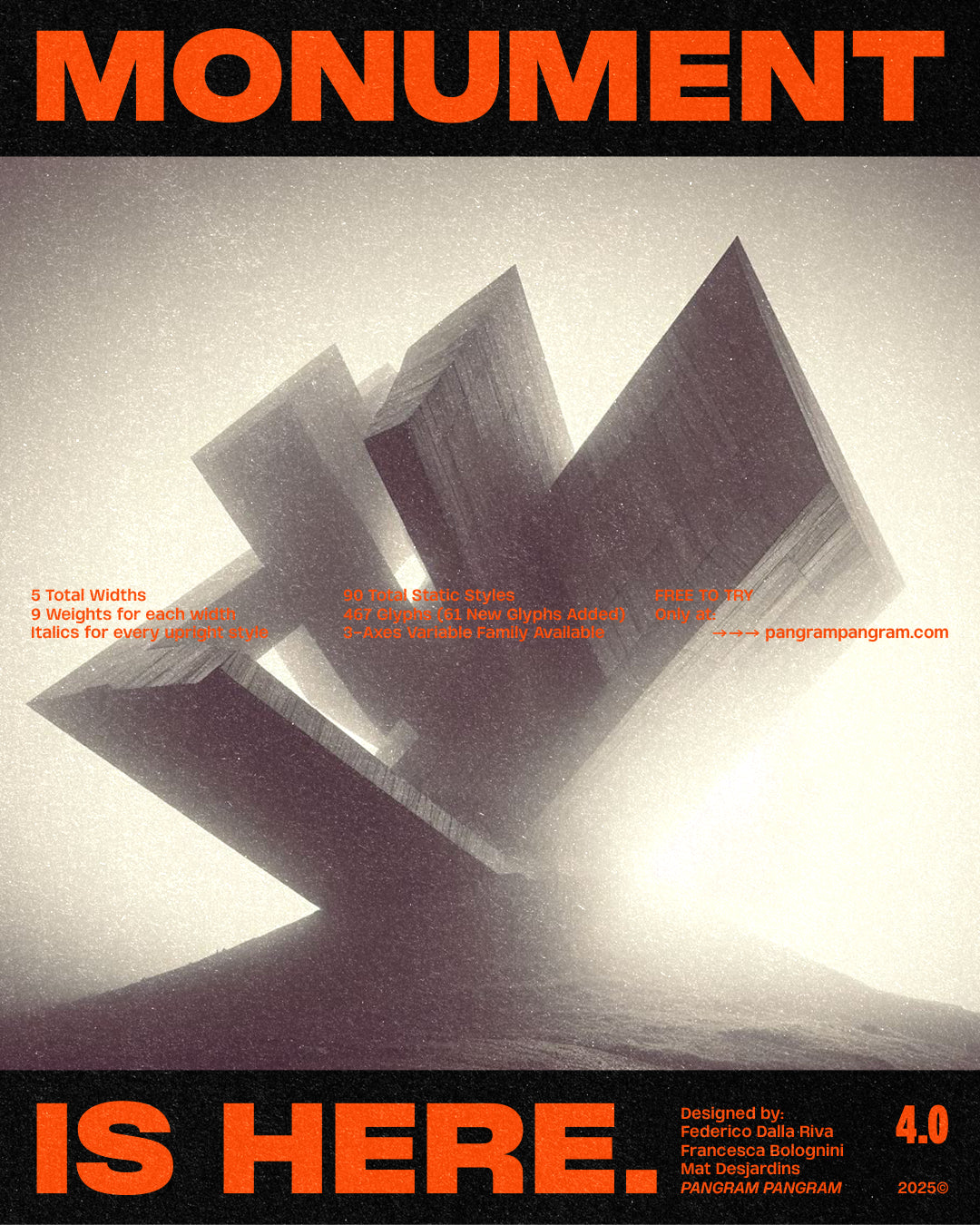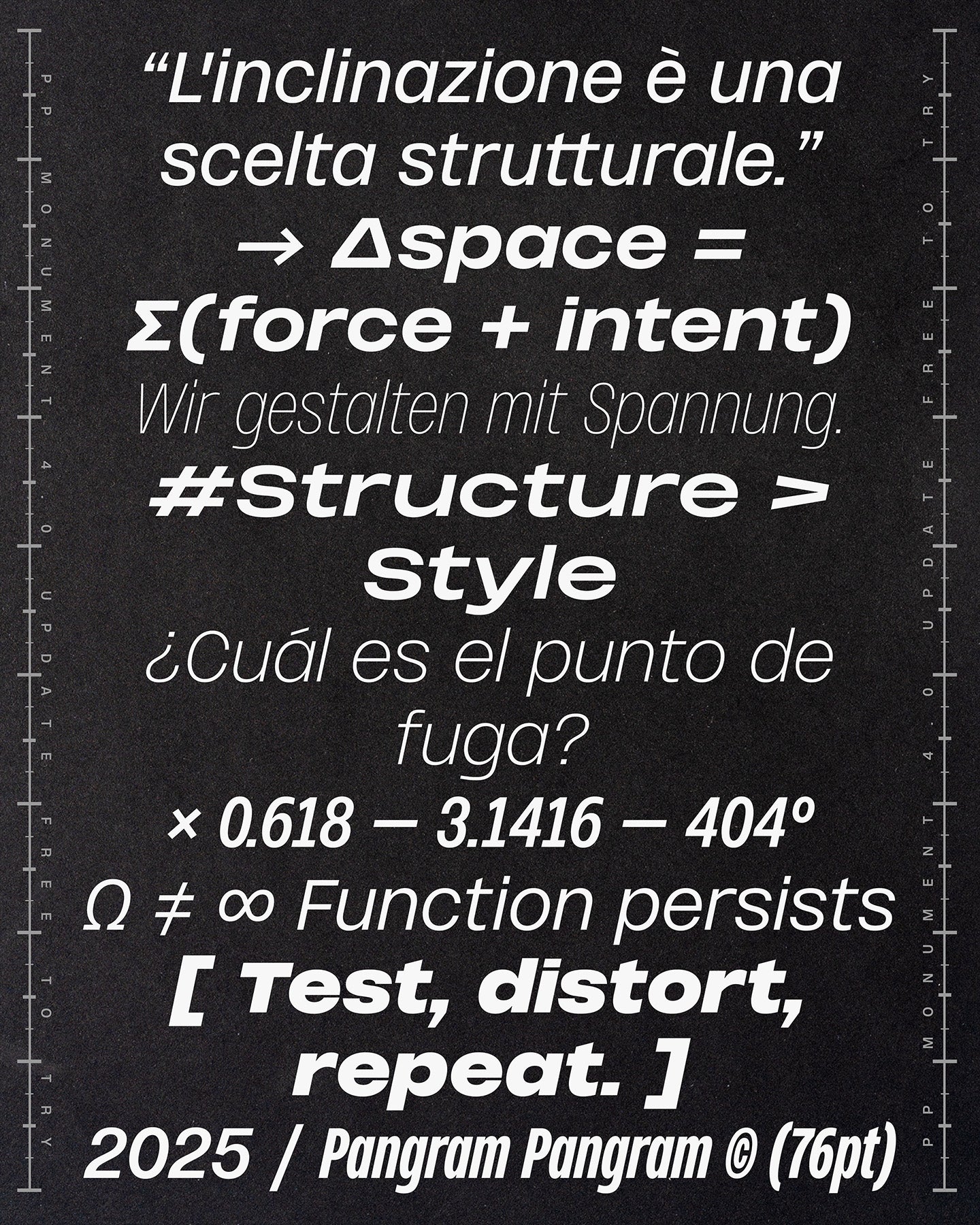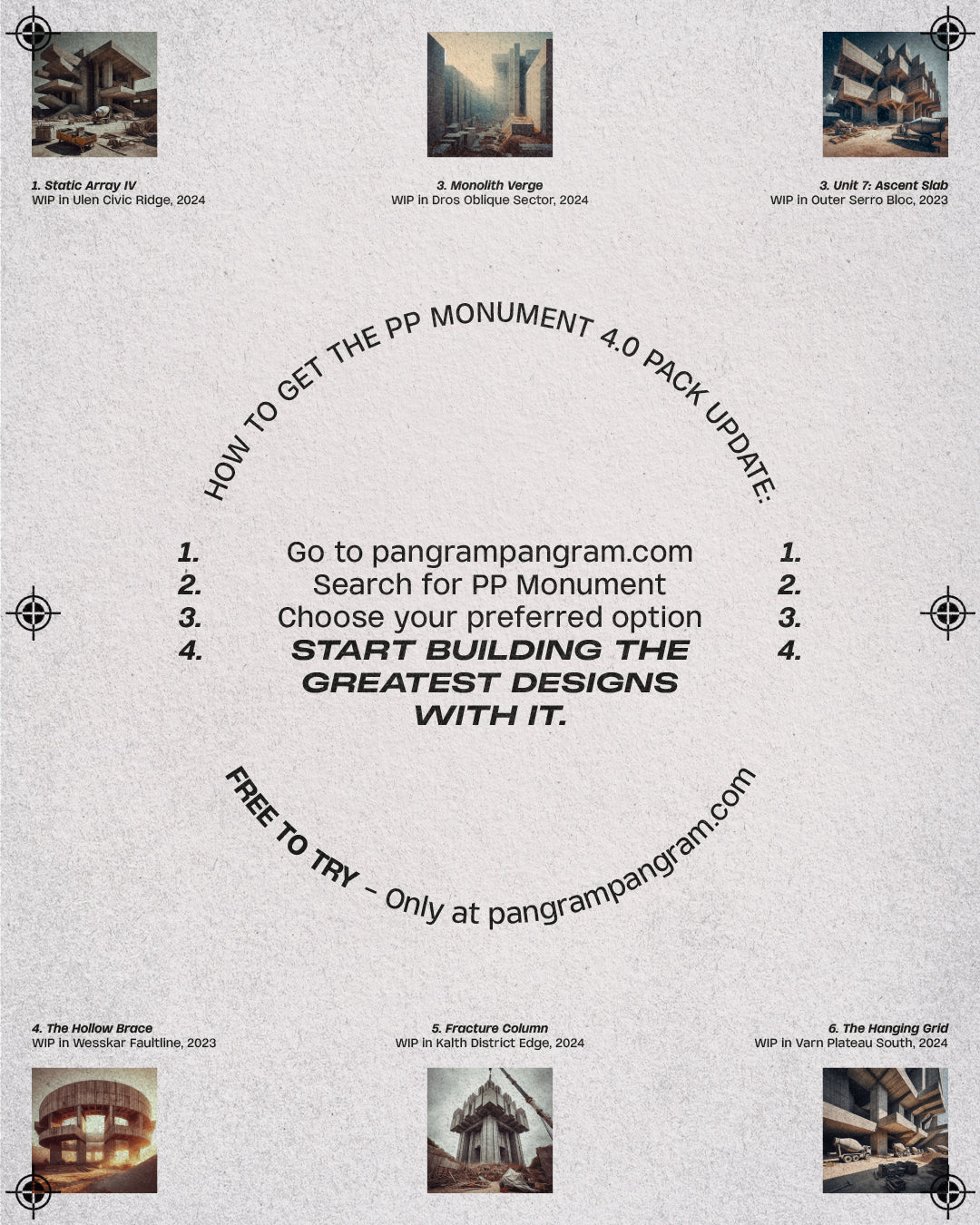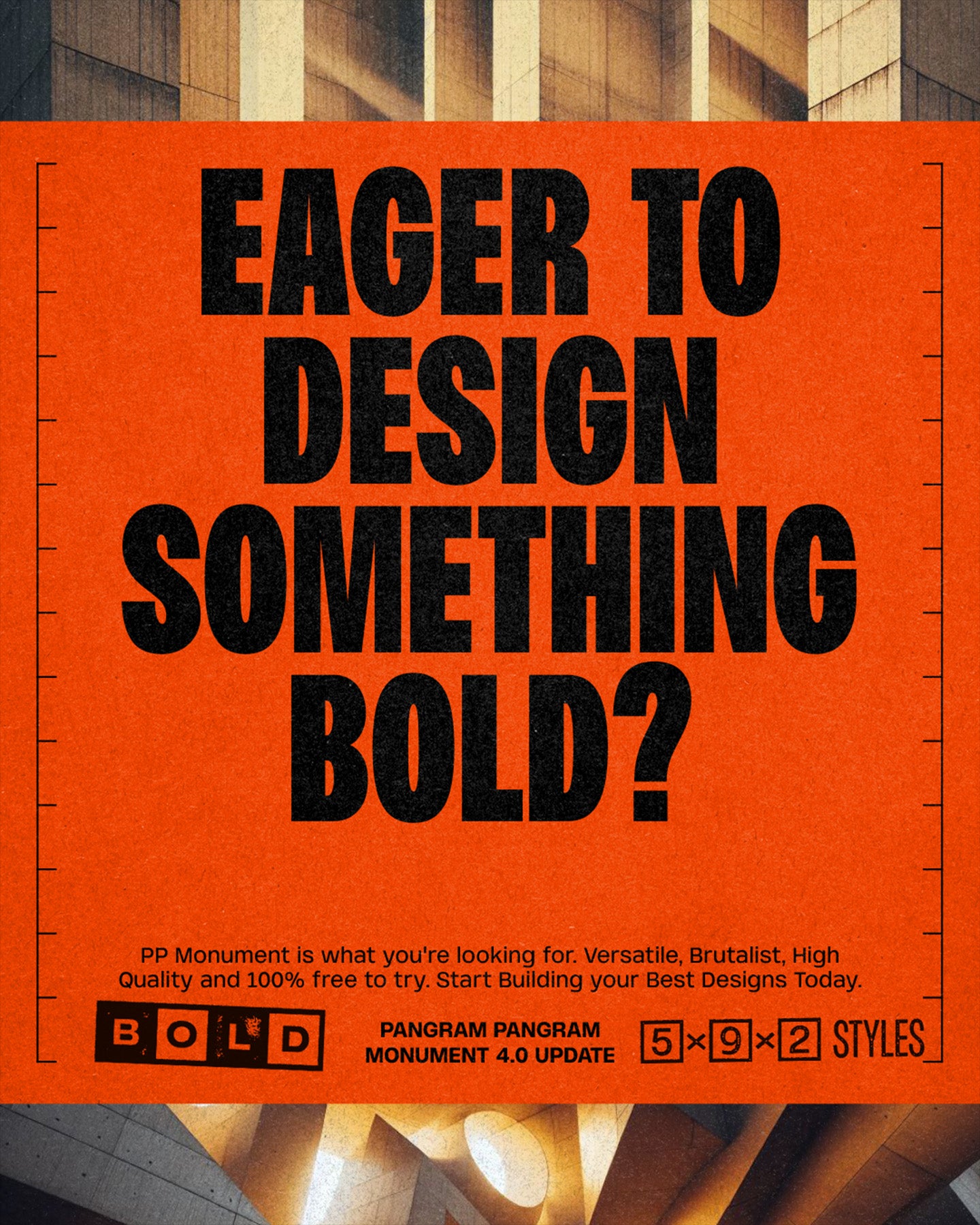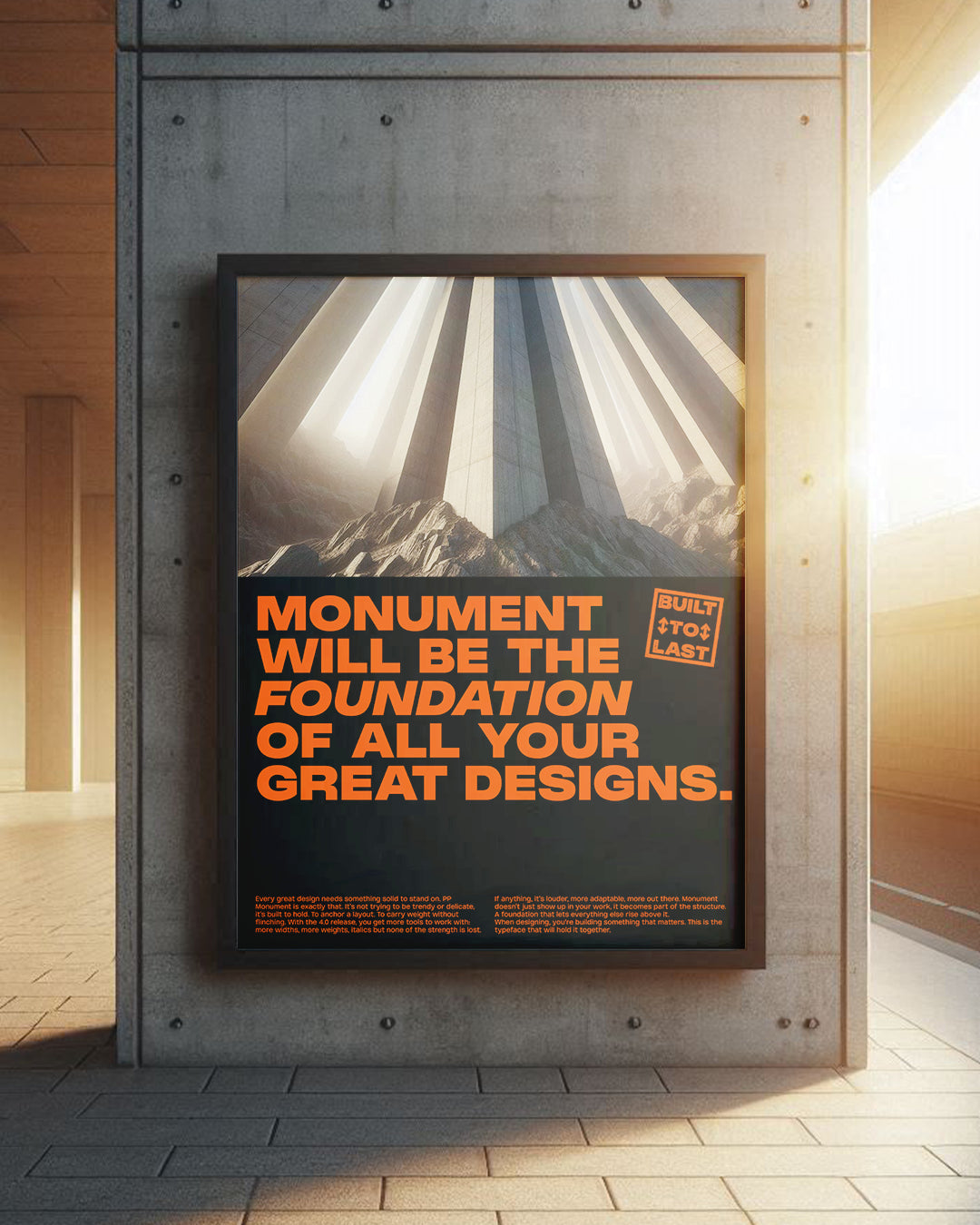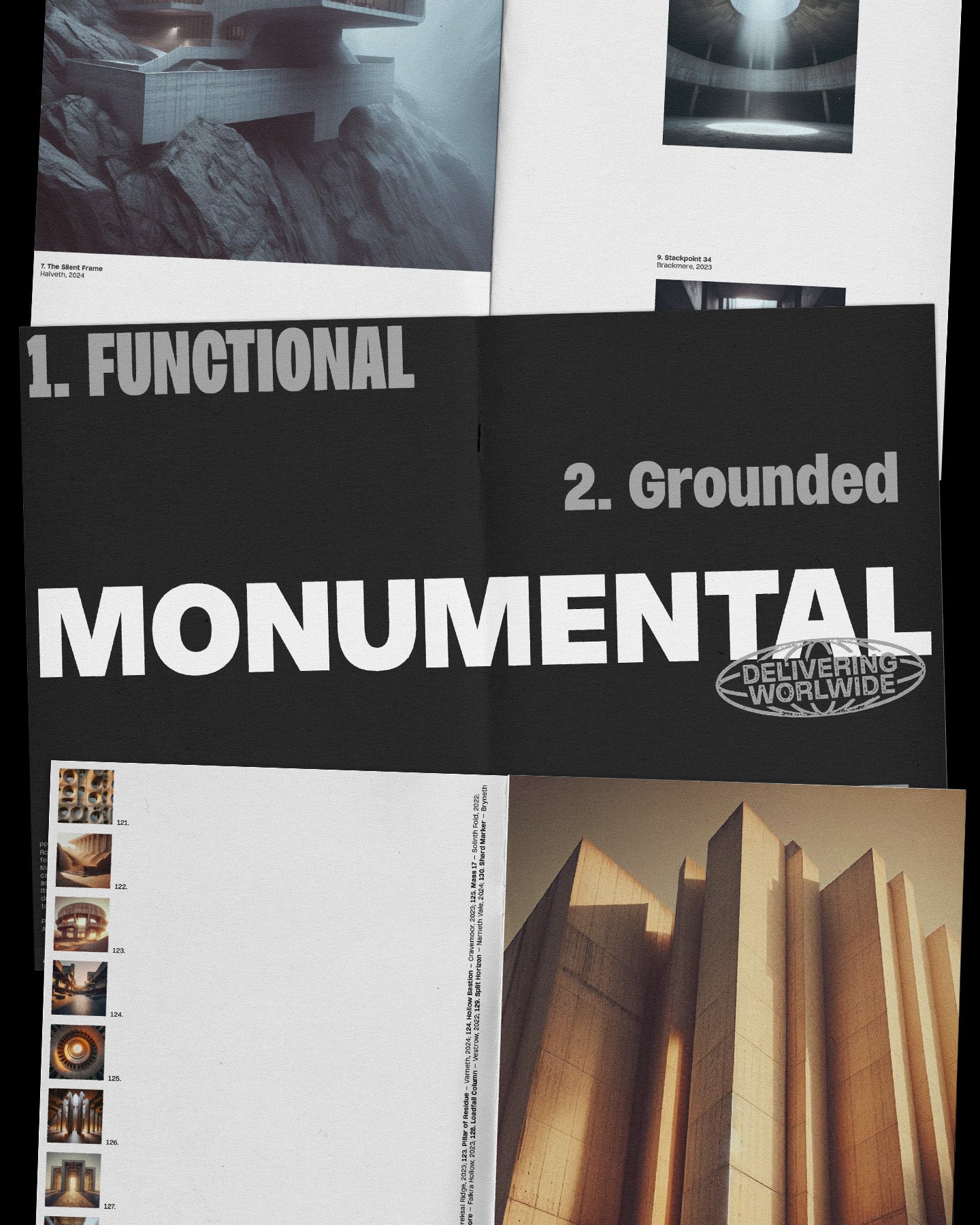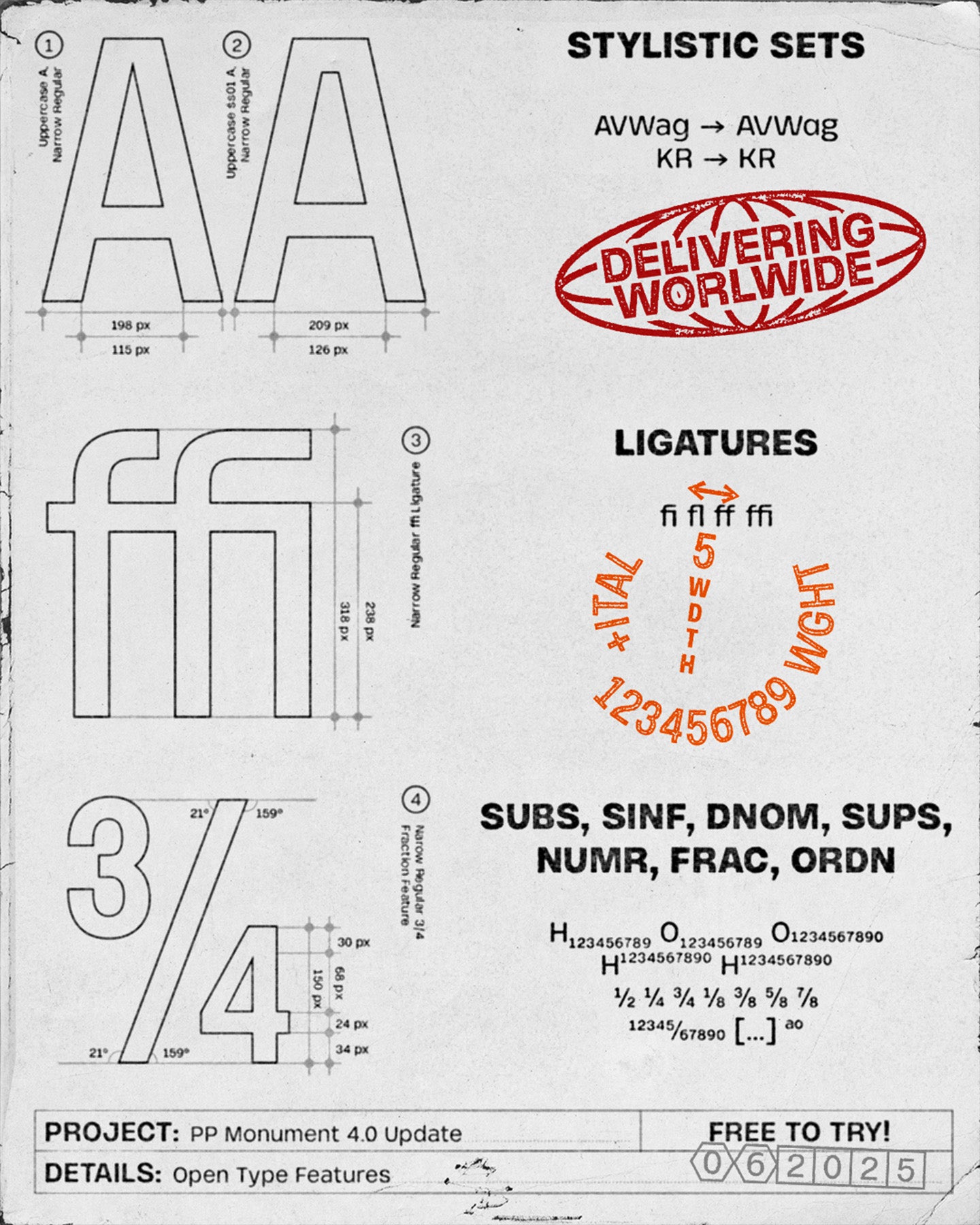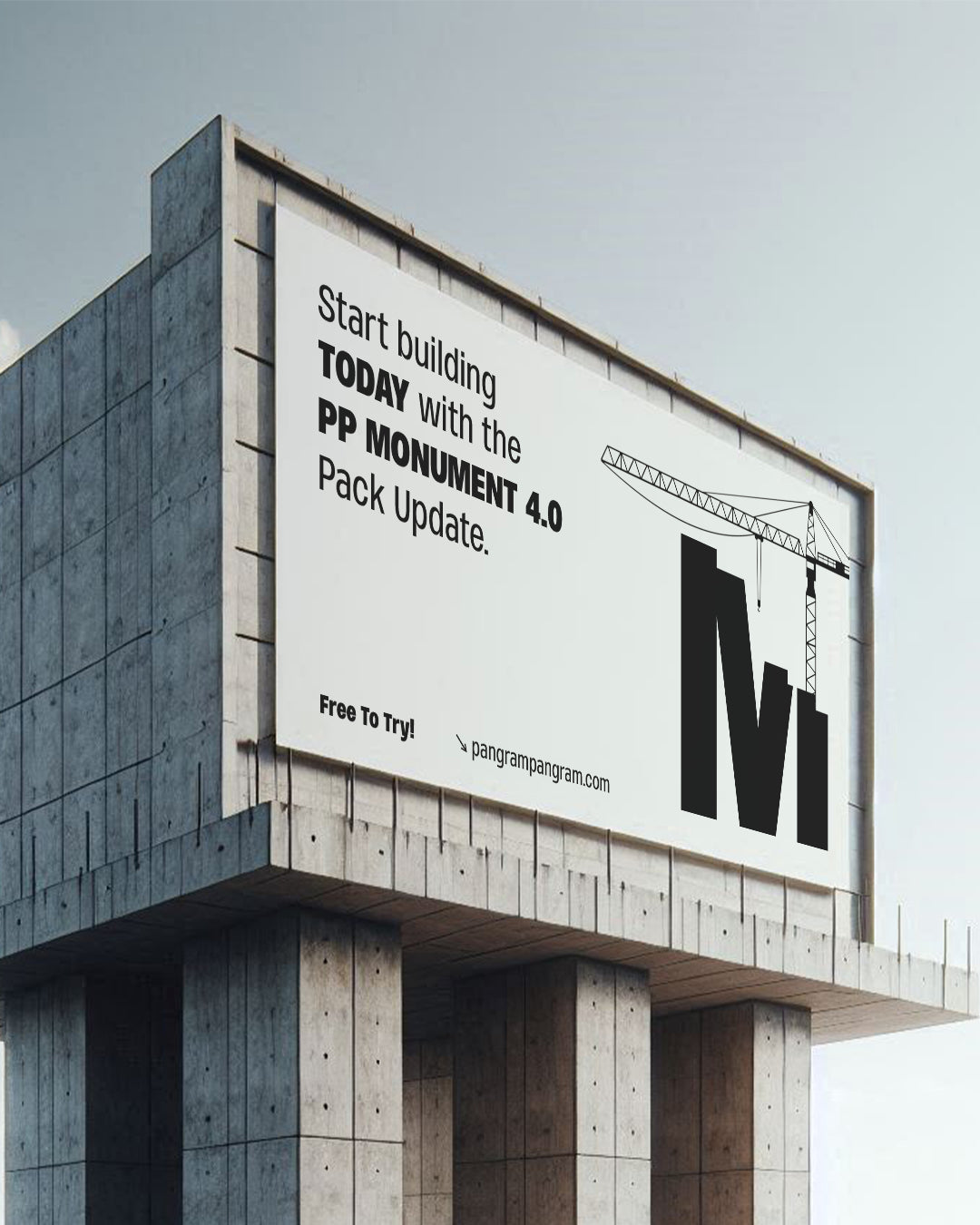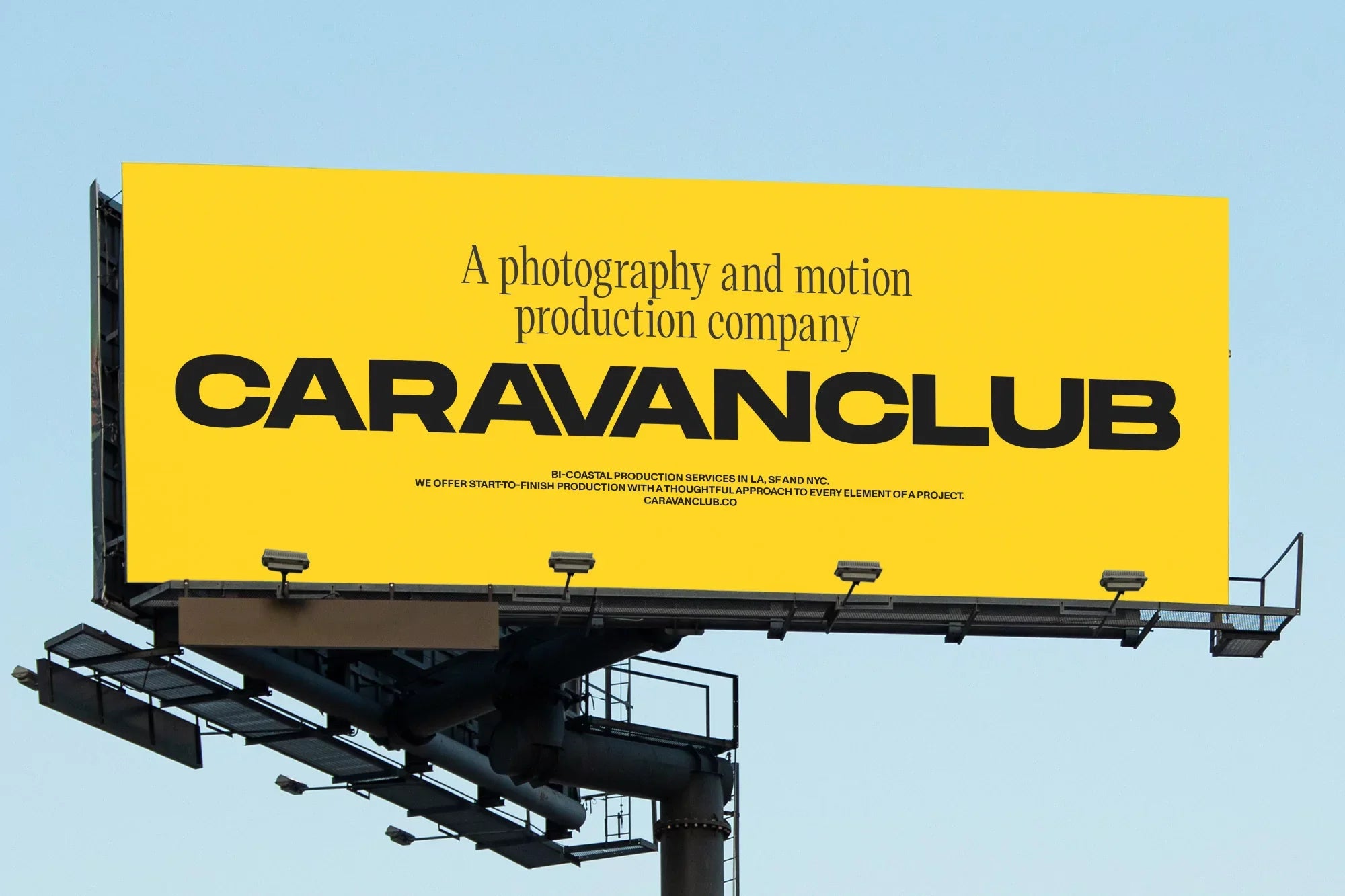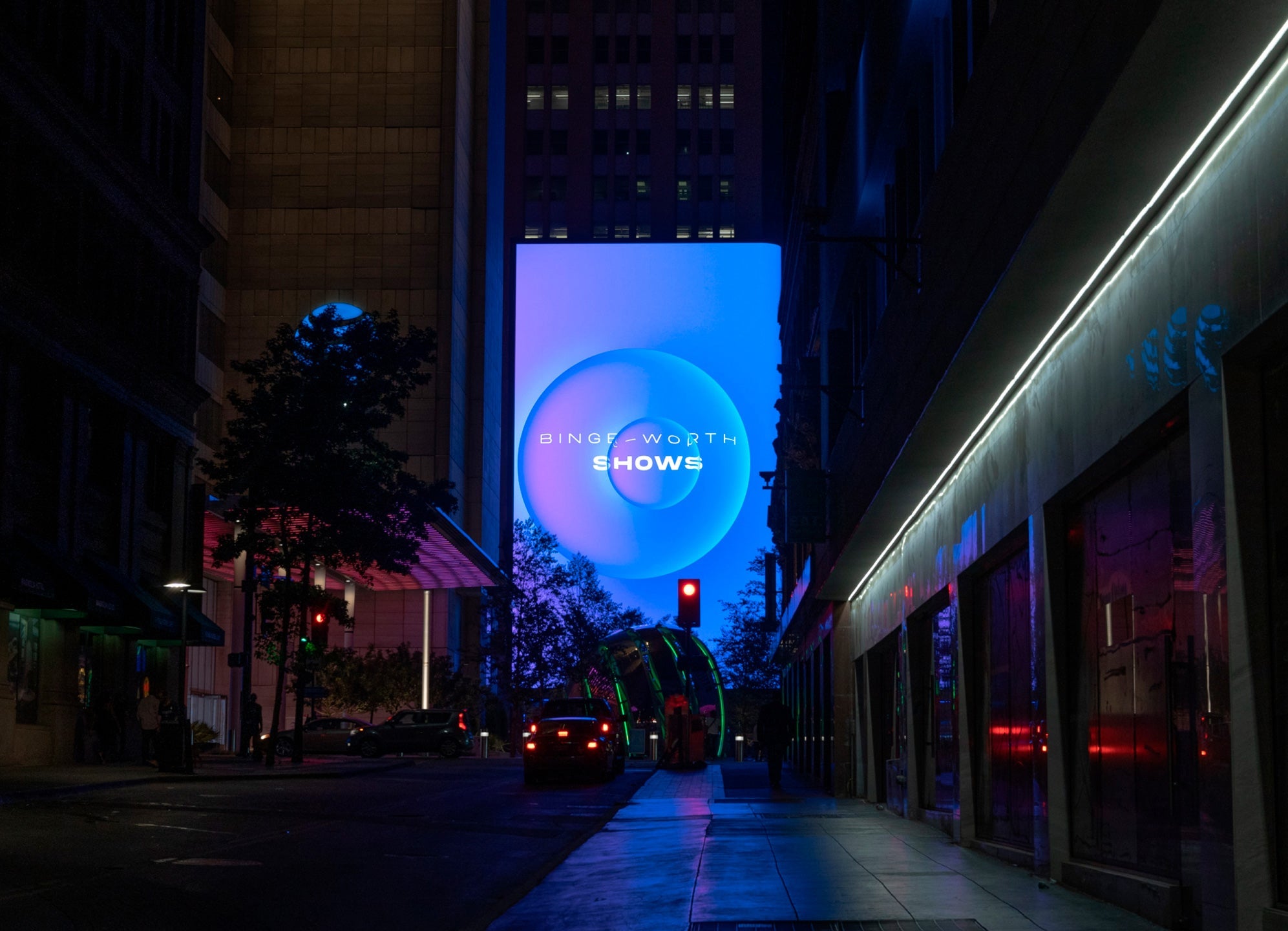
Monument Extended
Inspired by the raw beauty and imposing forms of brutalist architecture.
Monument Extended's Features
Your brutalist ally.
Monument is a powerful grotesk typeface inspired by the raw beauty and imposing forms of brutalist architecture. Originally designed to make bold statements, it's become a go-to for impactful design, attention-grabbing titles, and refined typographic compositions that demand presence.
With its major 2025 update, Monument has grown into one of Pangram Pangram’s most expansive and adaptable font families. It now includes five distinct widths, each available in nine carefully tuned weights, across both upright and italic styles, offering designers an exceptional range of typographic control.
Whether you’re crafting branding systems, editorial layouts, or digital experiences, Monument’s versatility and structure make it a workhorse with edge. From ultra-compressed to comfortably wide, it flexes confidently across screens and scales.